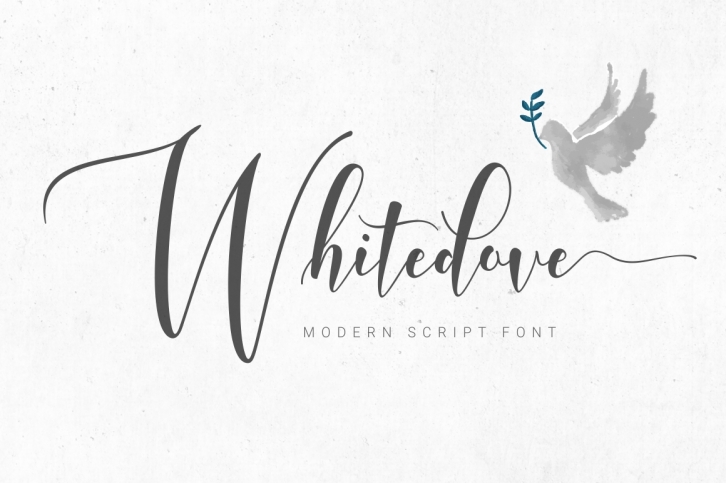
Whitedove is a smooth handwritten pen-script created by FadeLine. This stunning font comes with more than 600 unique glyphs.
Whitedove is an elegant type that looks professional, making it suitable for a large range of projects.